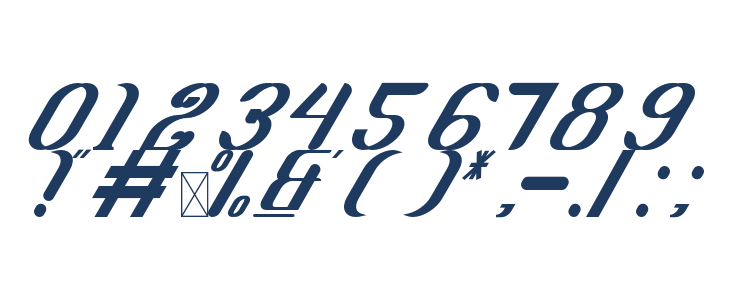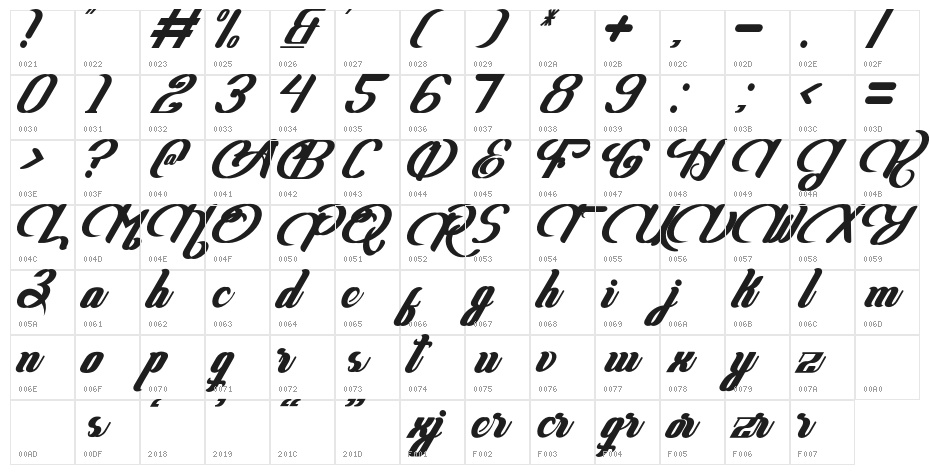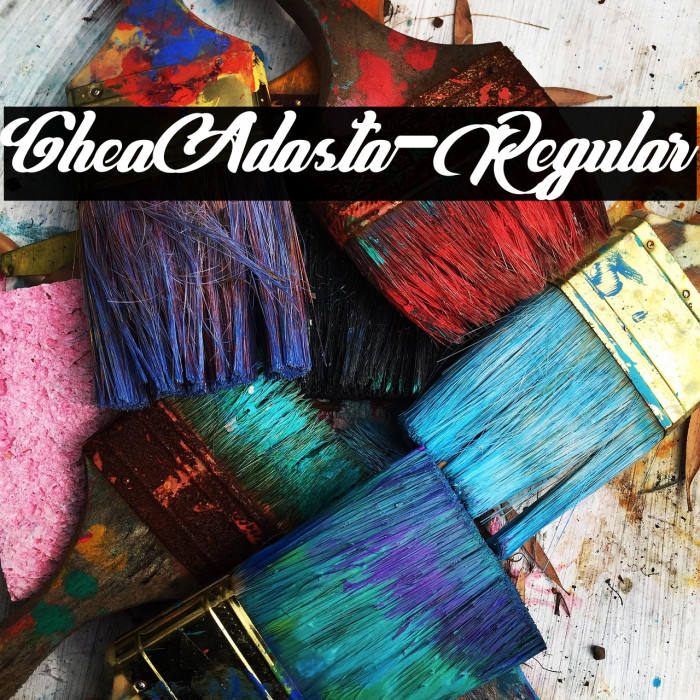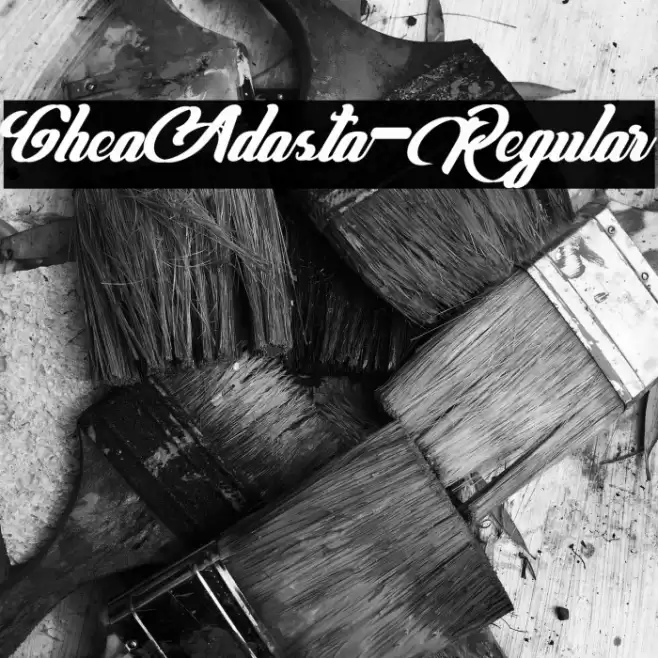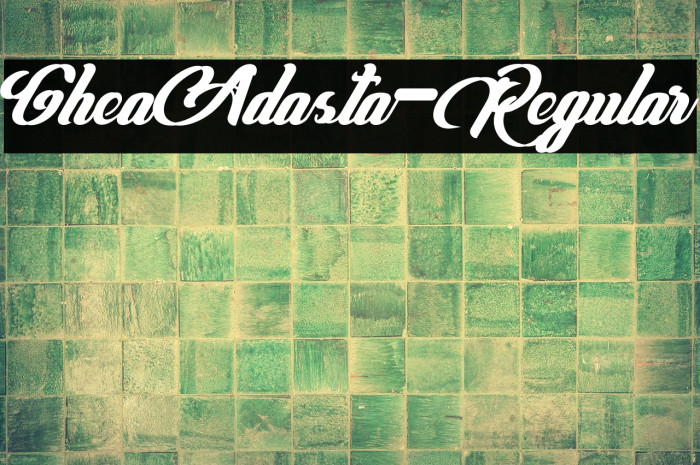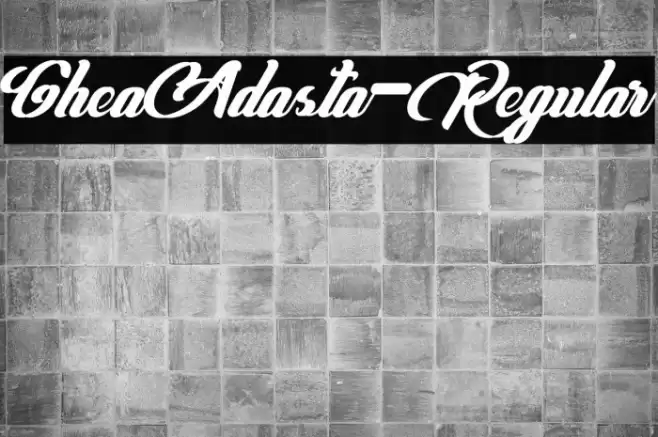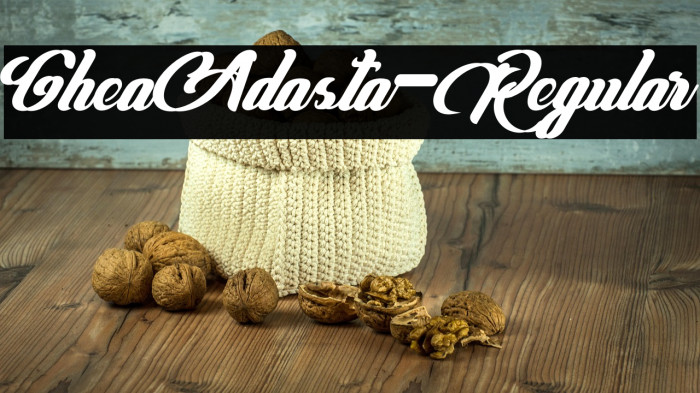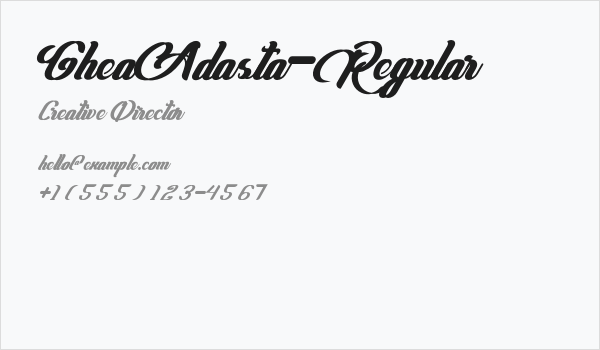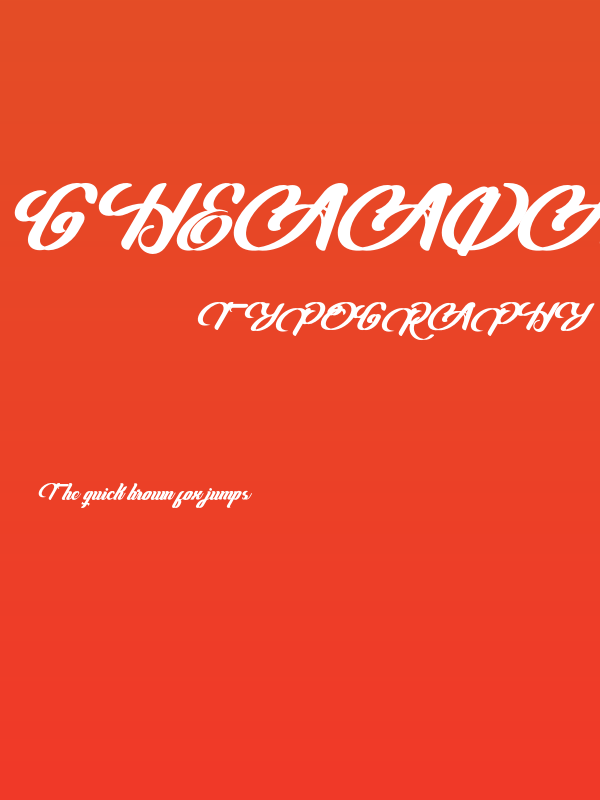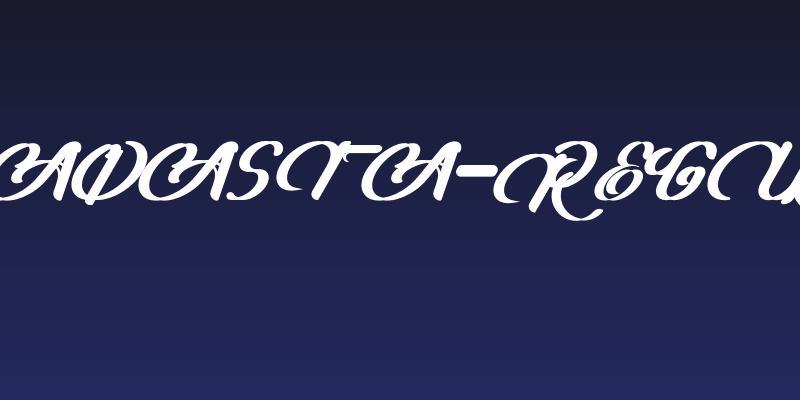
GheaAdasta-Regular Font
GheaAdasta-Regular Description
This font features a bold and expressive script style, characterized by its flowing, cursive letterforms. The uppercase letters are ornate with elegant swashes, while the lowercase letters maintain a consistent rhythm and fluidity. The numbers and special characters are designed to complement the overall aesthetic, adding a touch of sophistication. The font's bold weight and high contrast between thick and thin strokes make it stand out, ideal for creating impactful designs.